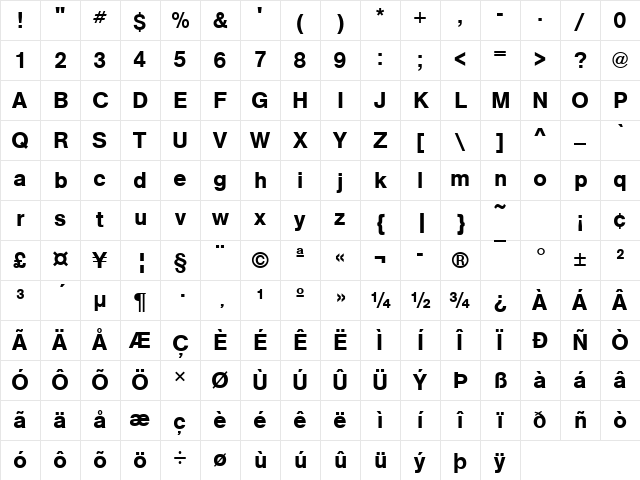
URWAccidaliaBucTMed Regular
URWAccidaliaBucTMed Family
Design Context for URWAccidaliaBucTMed
URWAccidaliaBucTMed is a composed and adaptable typeface that performs quietly and consistently across a wide range of design contexts.